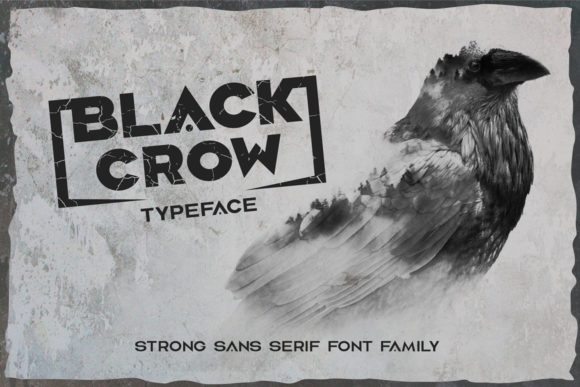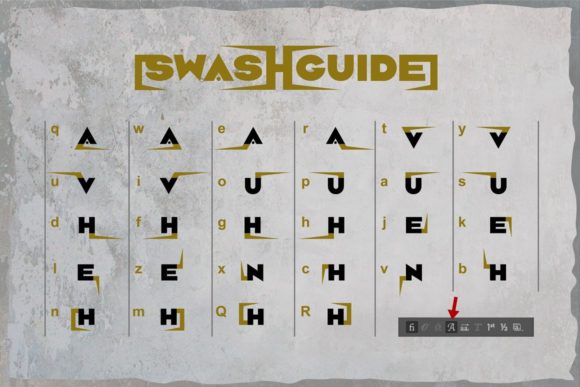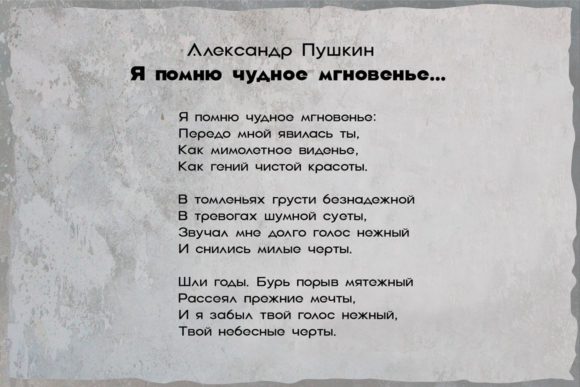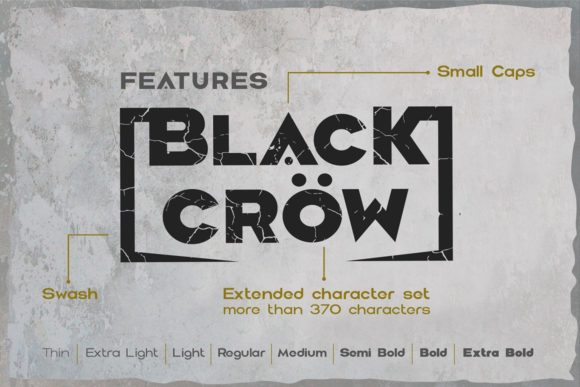
Unleash the Power of Black Crow Font: A Bold Display Font for Stunning Designs
Are you tired of using the same old fonts for your designs? Do you want to make a statement and grab the attention of your audience? Look no further than the Black Crow Font, an incredibly unique and bold display font that’s perfect for making your designs stand out. With its chunky and simple lettering, this font is ideal for designers and crafters who want to add a touch of personality to their work.
What Makes Black Crow Font So Special?
Black Crow Font is a one-of-a-kind display font that’s designed to make a bold statement. Its chunky and simple lettering makes it easy to read and understand, while its unique style adds a touch of sophistication to any design. Whether you’re working on a logo, poster, or social media graphic, this font is sure to turn heads.
One of the key features that sets Black Crow Font apart is its versatility. It can be used for a wide range of design projects, from bold and edgy to elegant and refined. The font’s chunky lettering also makes it perfect for use on large-scale designs, such as billboards and signage.
Why Designers and Crafters Love Black Crow Font
Designers and crafters love Black Crow Font for its unique style and versatility. Here are just a few reasons why:
- Easy to Read: Despite its bold and chunky style, Black Crow Font is surprisingly easy to read. This makes it perfect for use on designs that need to communicate a message quickly and effectively.
- Highly Versatile: Black Crow Font can be used for a wide range of design projects, from logos and posters to social media graphics and more.
- Unique Style: The font’s unique style adds a touch of personality to any design, making it perfect for designers and crafters who want to stand out from the crowd.
- Perfect for Large-Scale Designs: The font’s chunky lettering makes it perfect for use on large-scale designs, such as billboards and signage.
How to Use Black Crow Font in Your Designs
Using Black Crow Font in your designs is easy. Here are a few tips to get you started:
- Pair it with a Simple Background: Black Crow Font looks best when paired with a simple background. This allows the font to take center stage and make a bold statement.
- Experiment with Colors: Don’t be afraid to experiment with different colors when using Black Crow Font. The font looks great in bold and bright colors, as well as more muted tones.
- Use it for Headlines: Black Crow Font is perfect for use on headlines and titles. Its bold and chunky style makes it easy to read and understand, even from a distance.
- Add some Texture: Adding some texture to your design can help to take it to the next level. Try adding a subtle texture to your background or using a textured overlay to give your design some depth.
| Font Name | Black Crow Font |
| Author | Fractal font factory |
Black Crow Font is an incredibly unique and bold display font that’s perfect for designers and crafters who want to make a statement. With its chunky and simple lettering, this font is ideal for a wide range of design projects, from logos and posters to social media graphics and more. Whether you’re looking to add a touch of personality to your work or simply want to make your designs stand out, Black Crow Font is the perfect choice.